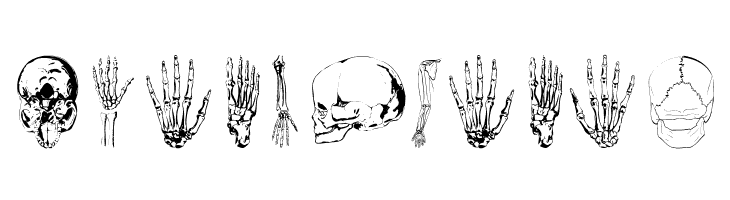
Whimsical anatomical display font with hand-drawn body parts.
( Fonts by Alex Tomlinson - Skyhaven Fonts - shfonts.com )
A bold, decorative font with atomic motifs for a futuristic look.
( Fonts by Jens R. Ziehn - www.filmhimmel.com )
A creative display font inspired by medical instruments, perfect for anatomical themes.
( Fonts by quadratype )
A bold, humorous font with exaggerated anatomical shapes and playful design.
Anatomy-themed font with characters resembling human organs and body parts.
( Fonts by Digi Temply )
A decorative dingbat set with mid-century modern and atomic age motifs.
( Fonts by Michel Kern )
A modern, atomic-themed design with consistent symbols and a scientific aesthetic.
( Fonts by François Bruel )
A bold, whimsical font with playful, decorative elements and dynamic letterforms.
( Fonts by Nick Curtis - www.nicksfonts.com )
A bold, angular font with a futuristic, space-age design.
( Fonts by Altsys Metamorphosis )
A diverse collection of bold, high-contrast symbols and icons.
A bold, surreal icon-based decorative font with eye and anatomical motifs.
A decorative font with medical-themed icons and symbols.
A modern, decorative icon font with bold and outlined life-inspired symbols.
Bold pictogram dingbats depicting military and war-related imagery.
Hand-drawn woodcut-style medical icon set.
( Fonts by Mike Wolf )
A playful, futuristic font with bold, rounded shapes and whimsical accents.
A decorative font inspired by the periodic table, featuring bold, grunge-style characters.
A decorative font with abstract, alien-like shapes and molecular designs.
A decorative font inspired by molecular structures, featuring dots and lines.
A diverse collection of heart-themed symbols with creative and artistic variations.